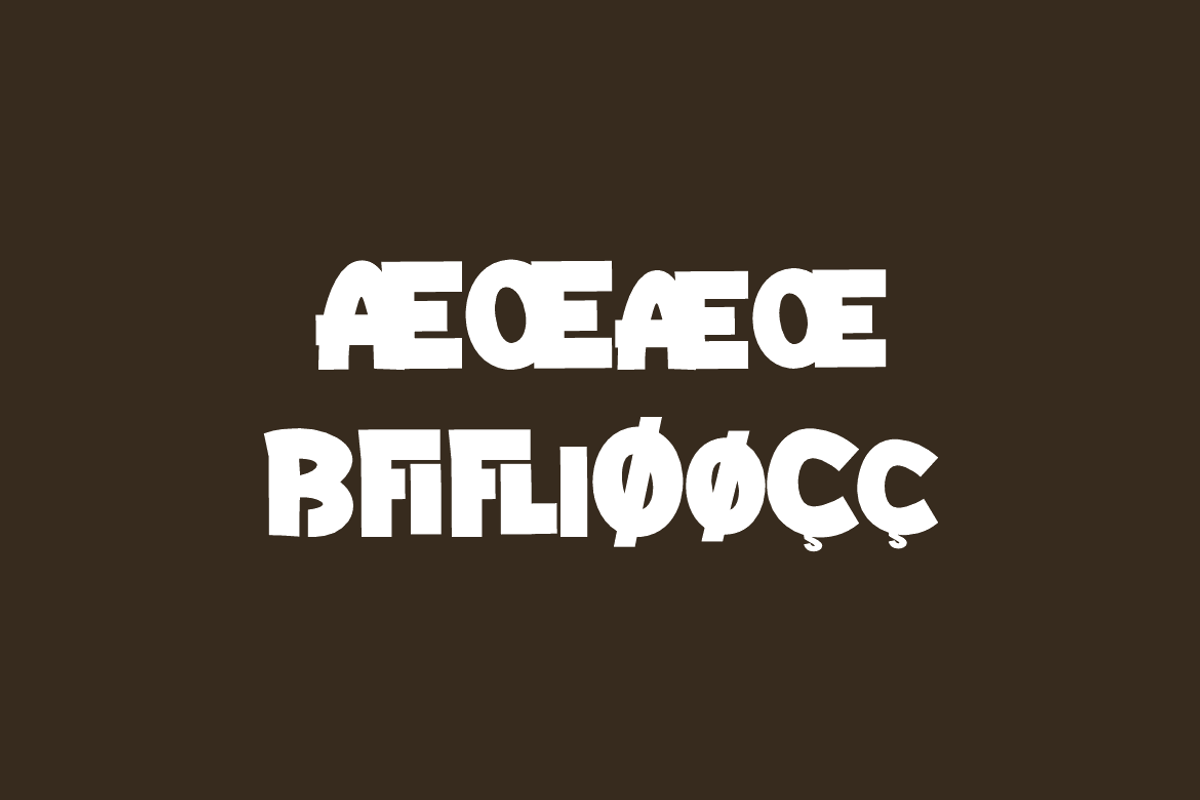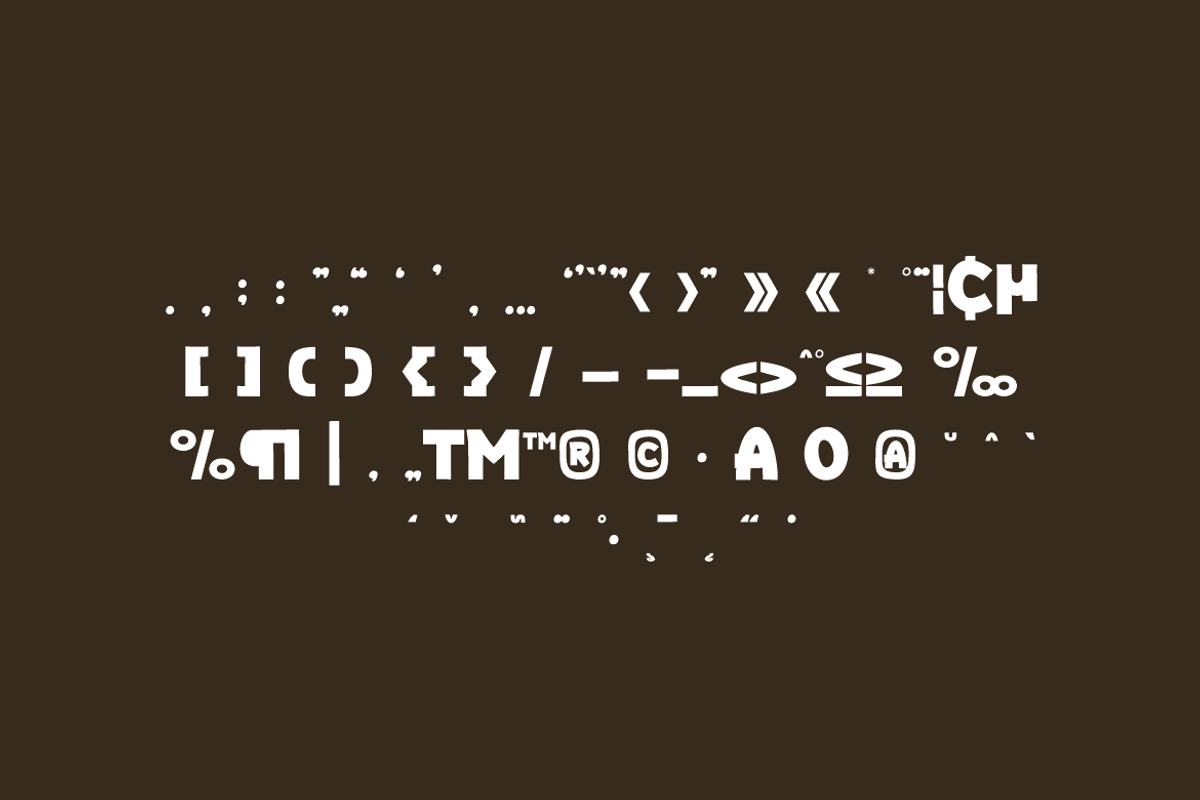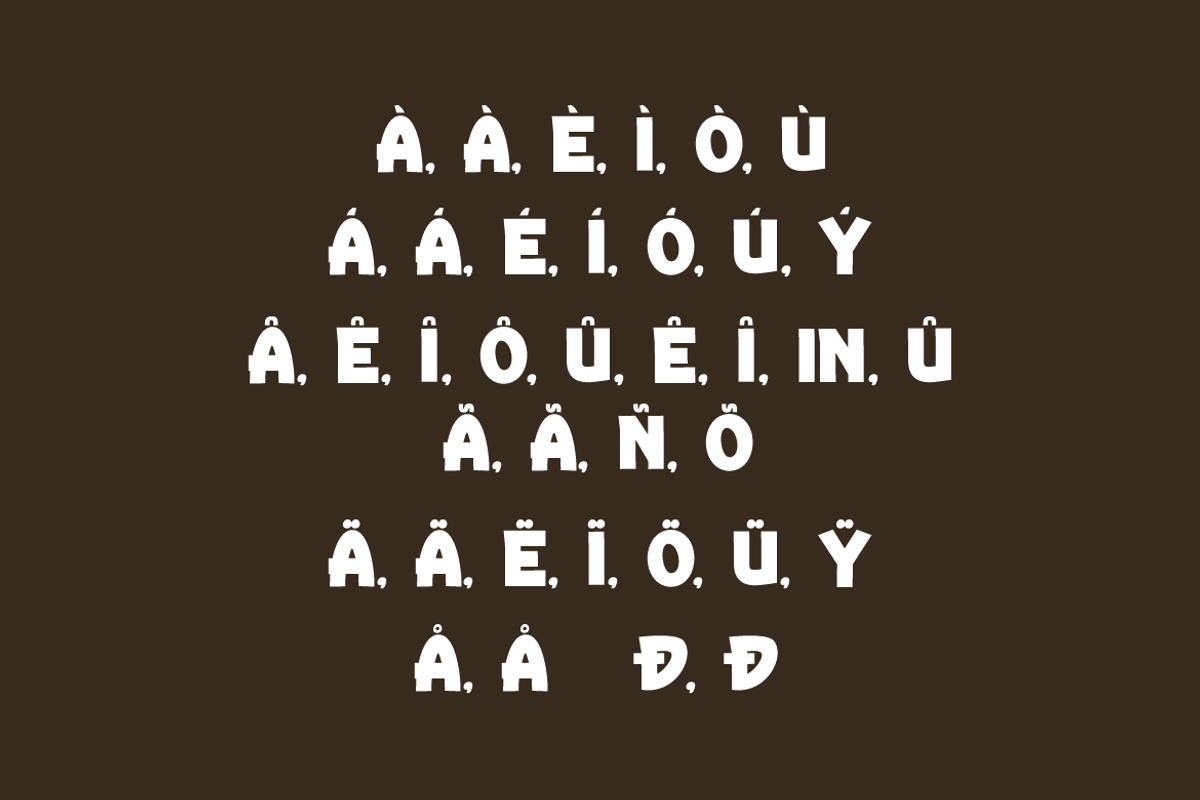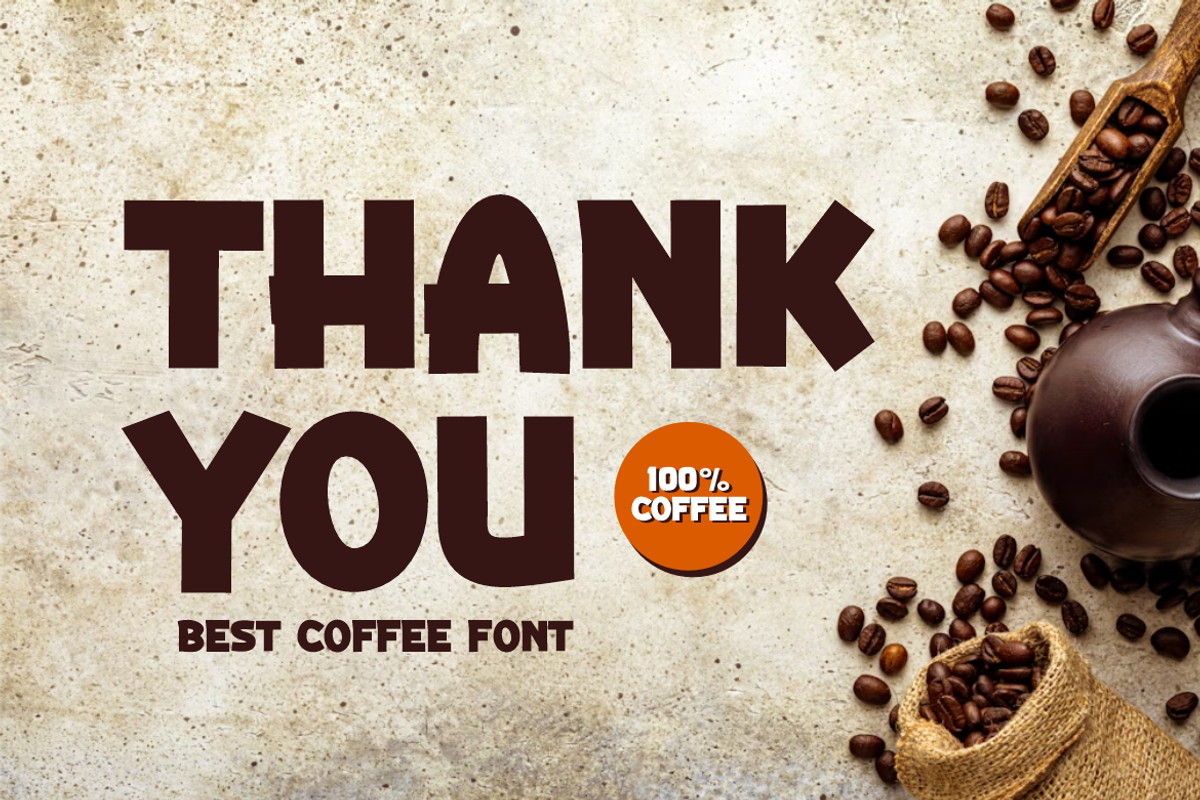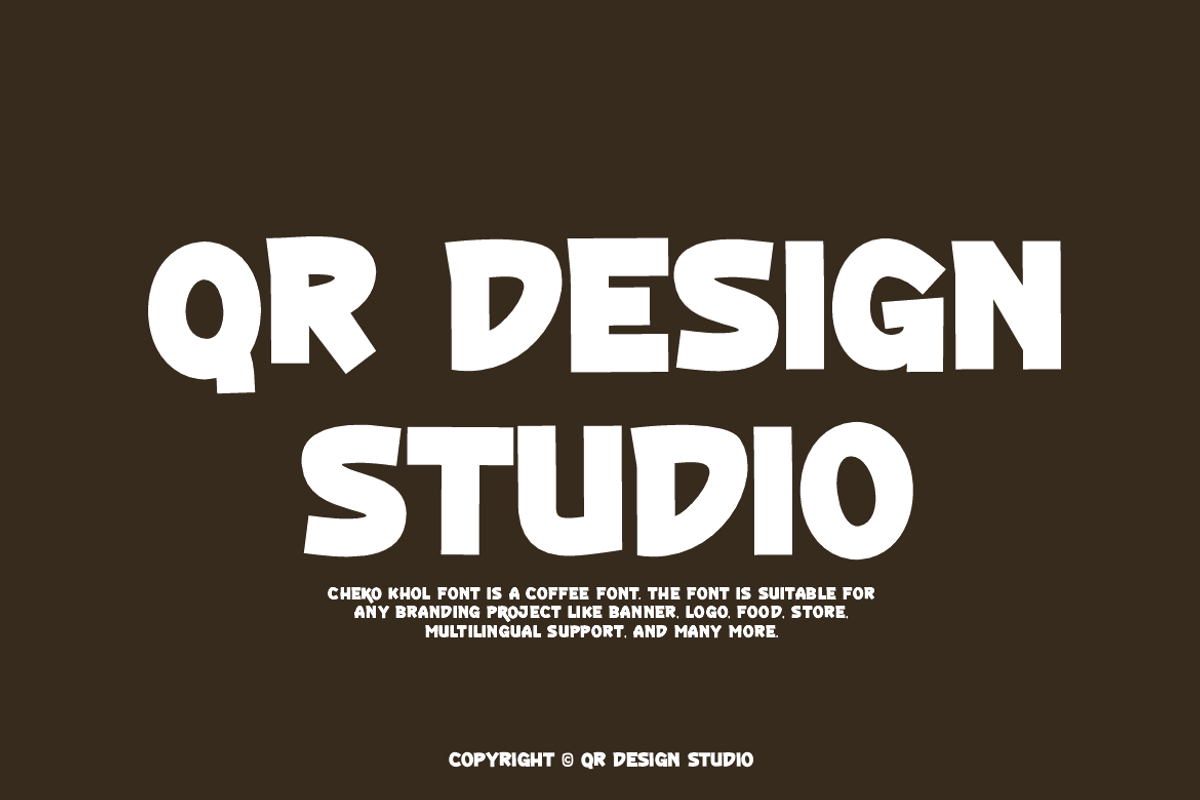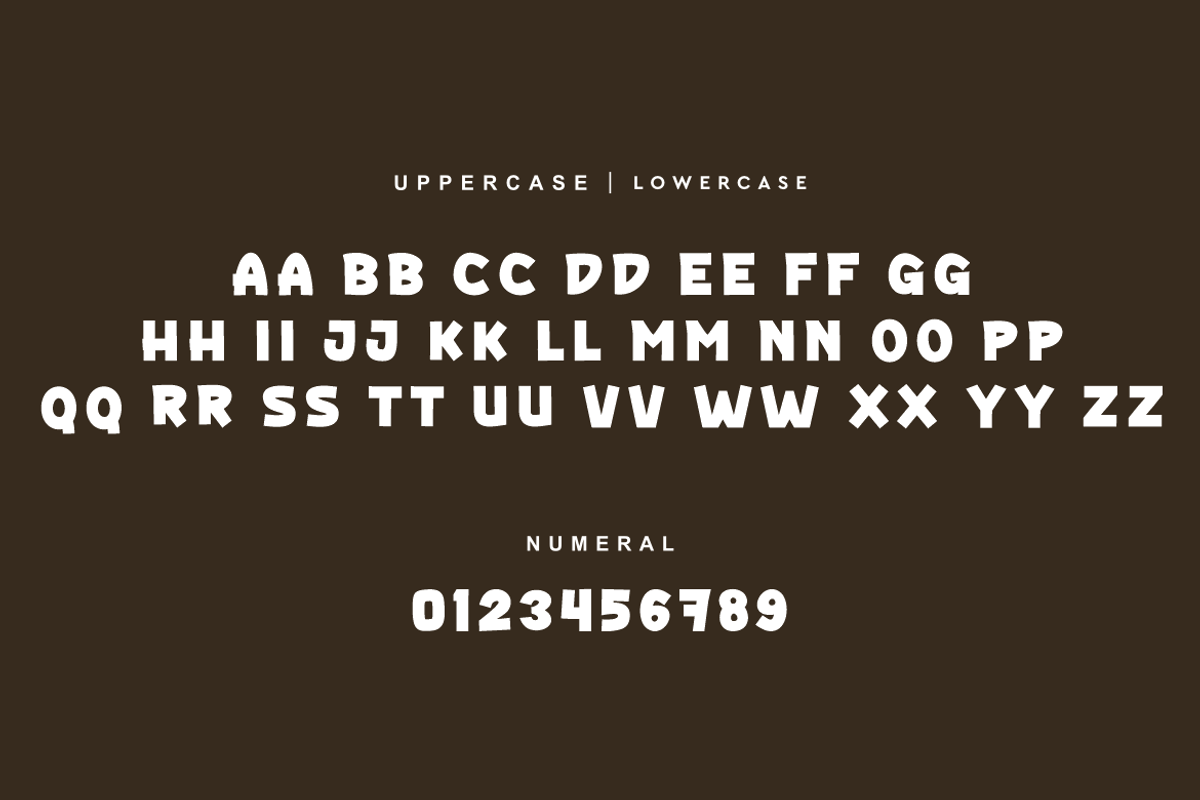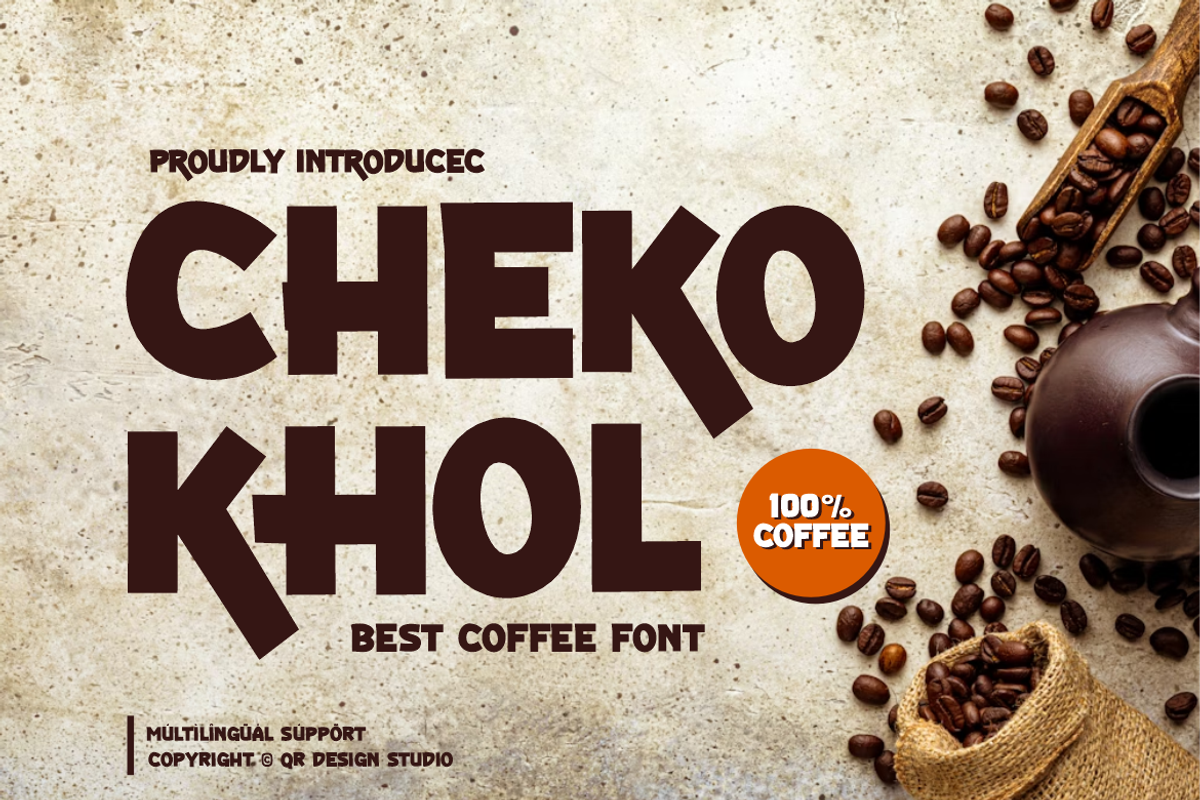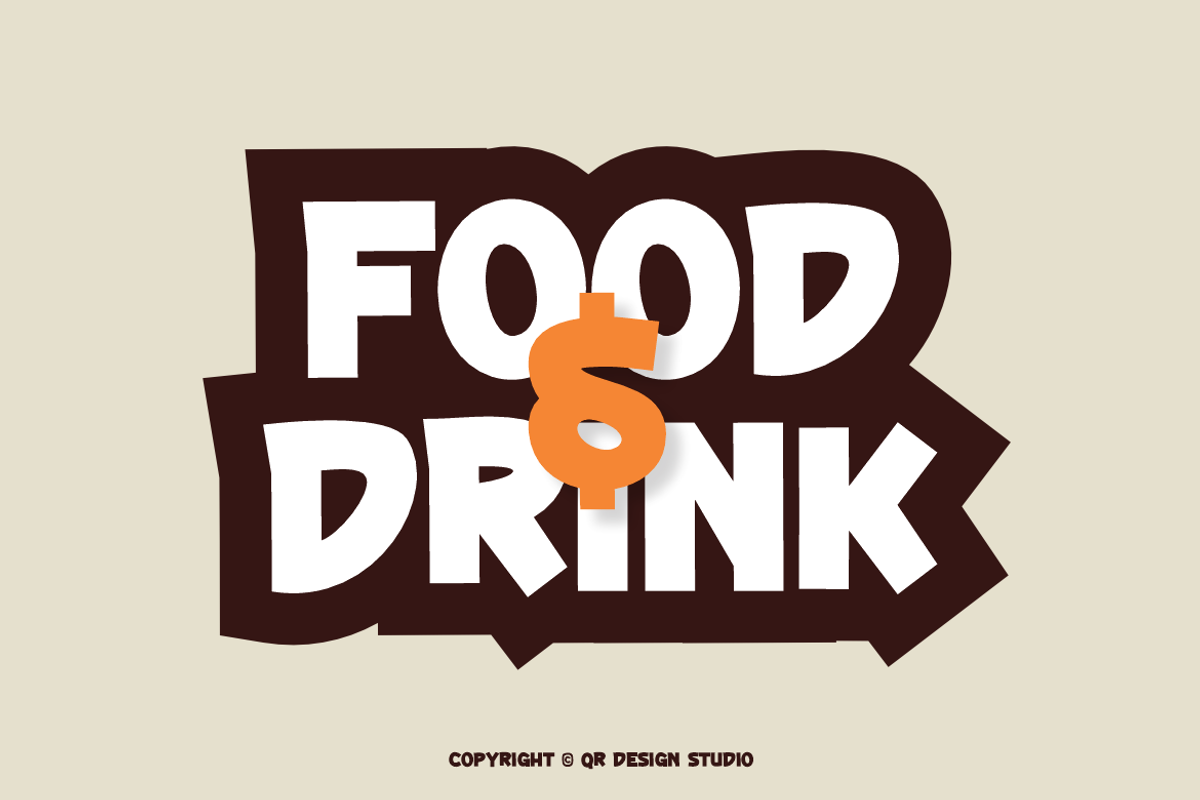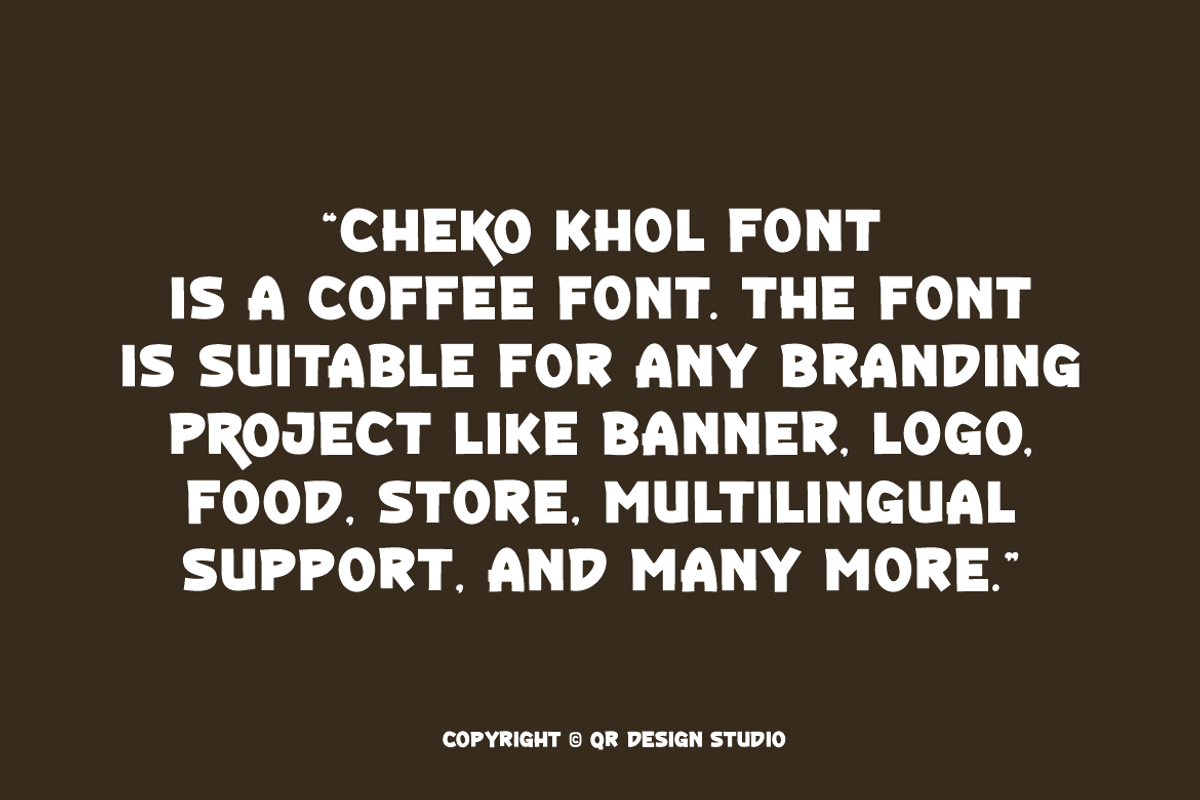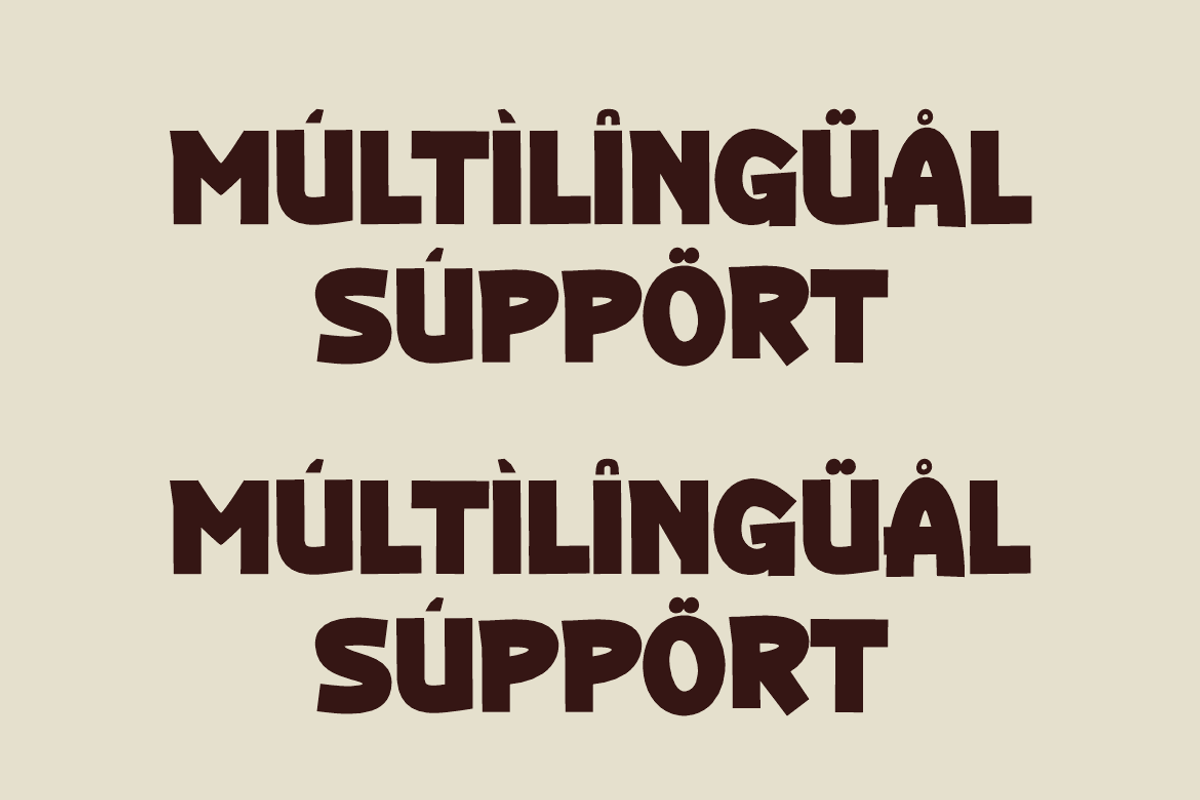
Cheko Khol - Coffee Shop Font
Cheko Khol Font is a bold and authentic display font. The font is suitable for any branding project like poster, logo, coffee, and many more. Outstanding in a wide range of contexts.